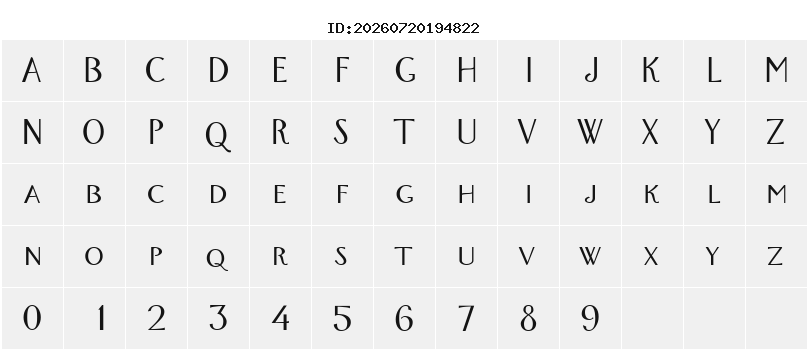
Fox Trot.ttf is a modern, elegant sans-serif font designed for ultimate readability and visual harmony. Perfect for branding, headlines, web design, and print materials.